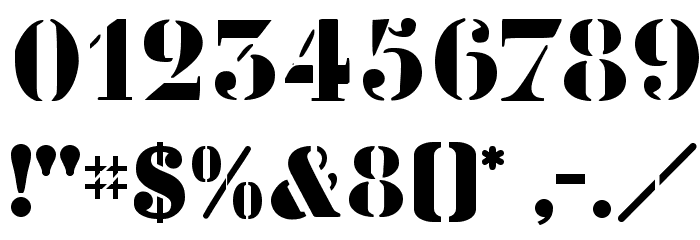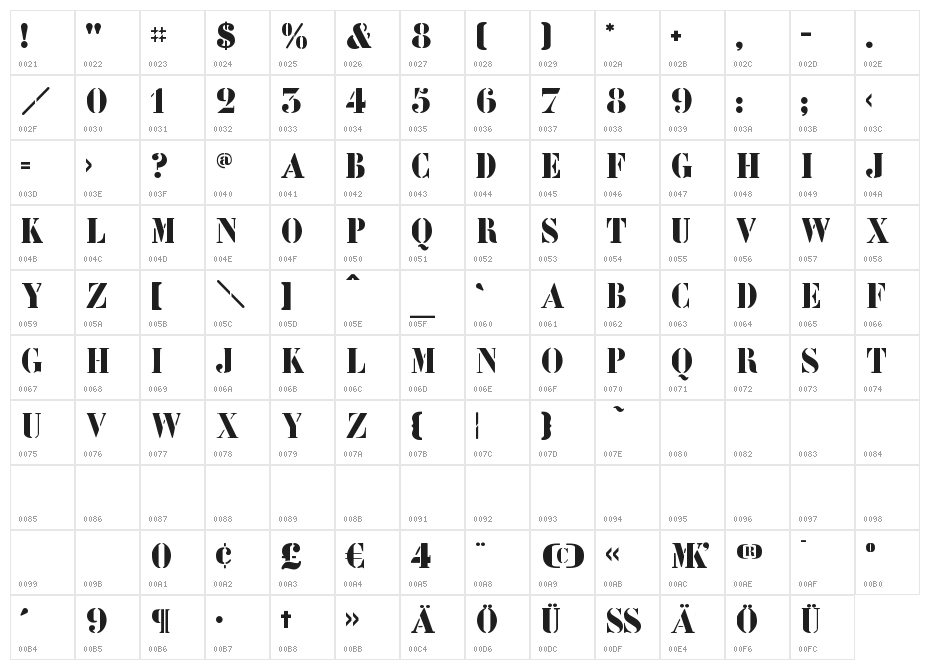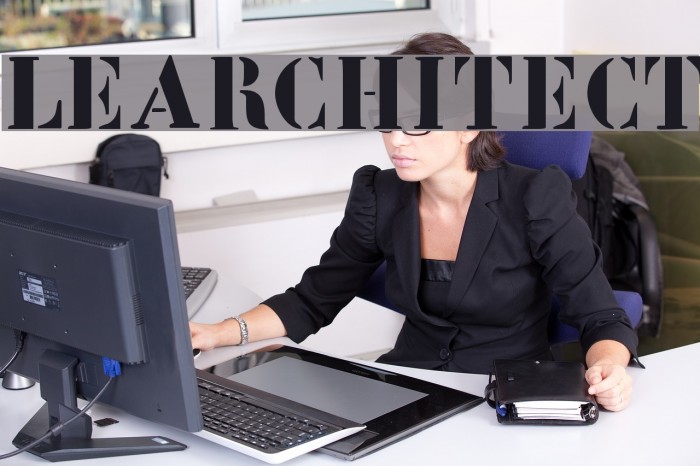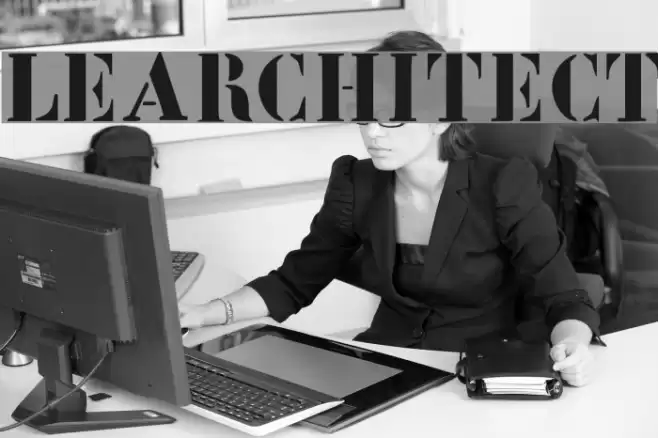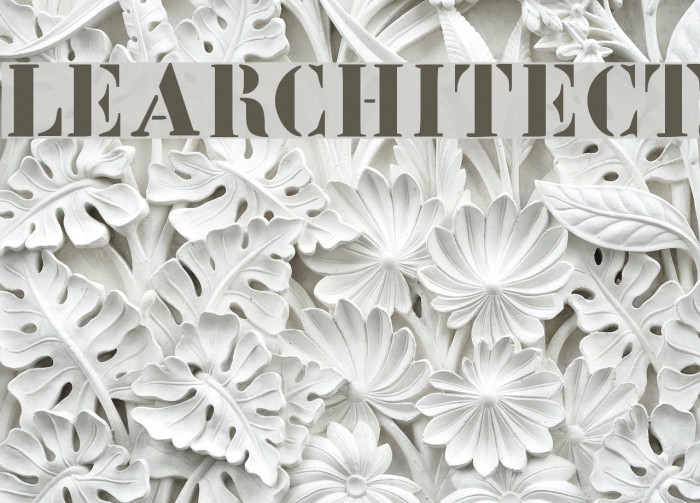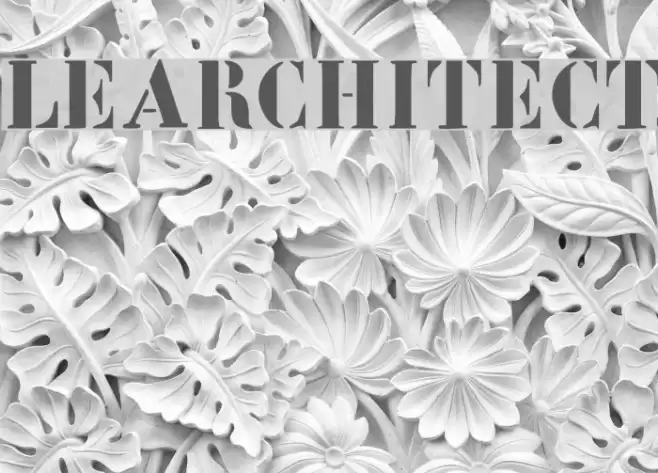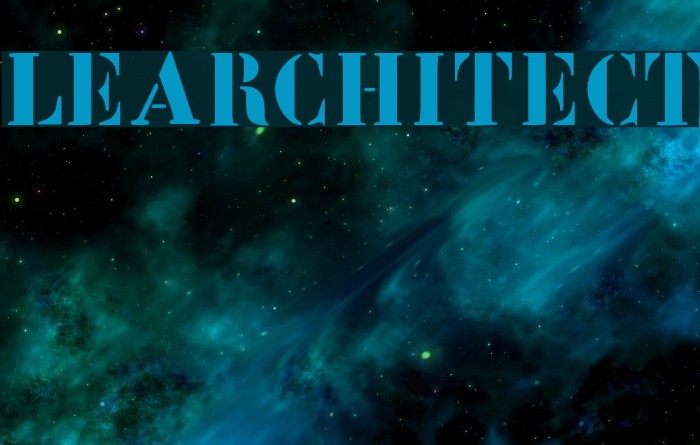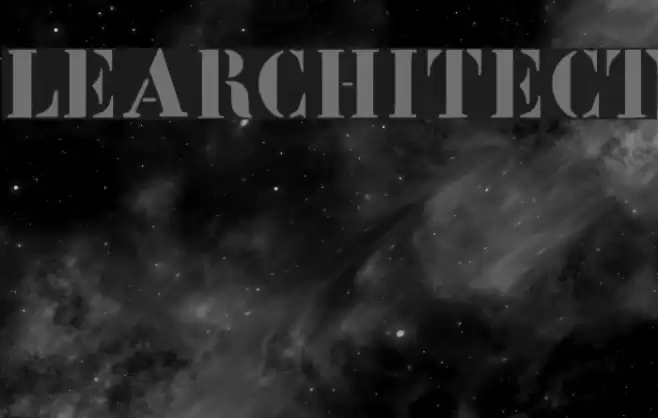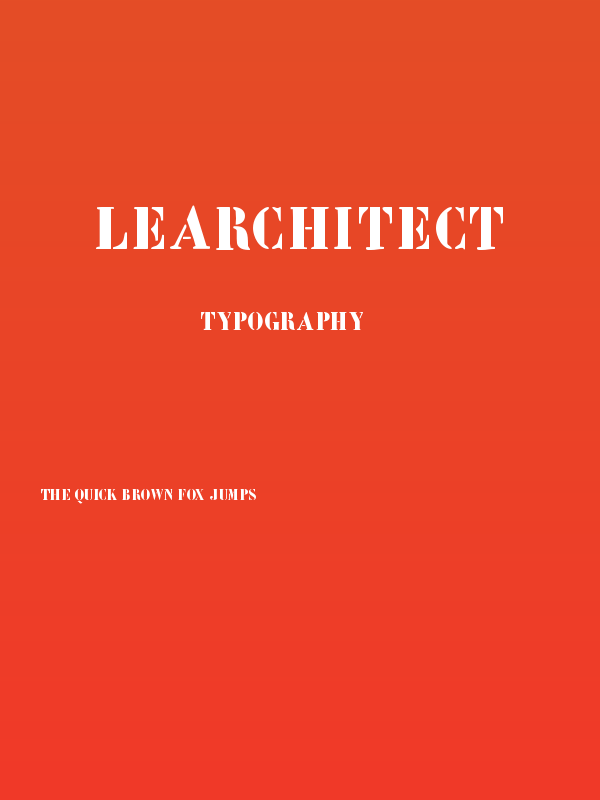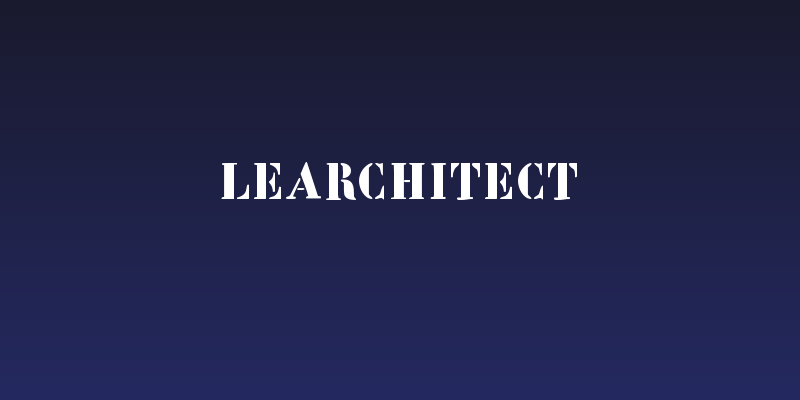
LeArchitect Font
LeArchitect Description
This font features a bold and striking stencil design, characterized by its distinct cut-out sections within each letterform. The uppercase and lowercase letters maintain a consistent style, with sharp angles and clean lines that create a sense of modernity and strength. The numerals and special characters follow the same aesthetic, ensuring uniformity across all glyphs. The font's high contrast between thick and thin strokes adds to its dramatic appearance, making it ideal for attention-grabbing designs. Its unique style is both functional and decorative, suitable for a variety of creative applications.
| Proposed Projects | Ideal for branding, posters, signage, and editorial design where a bold statement is needed. |